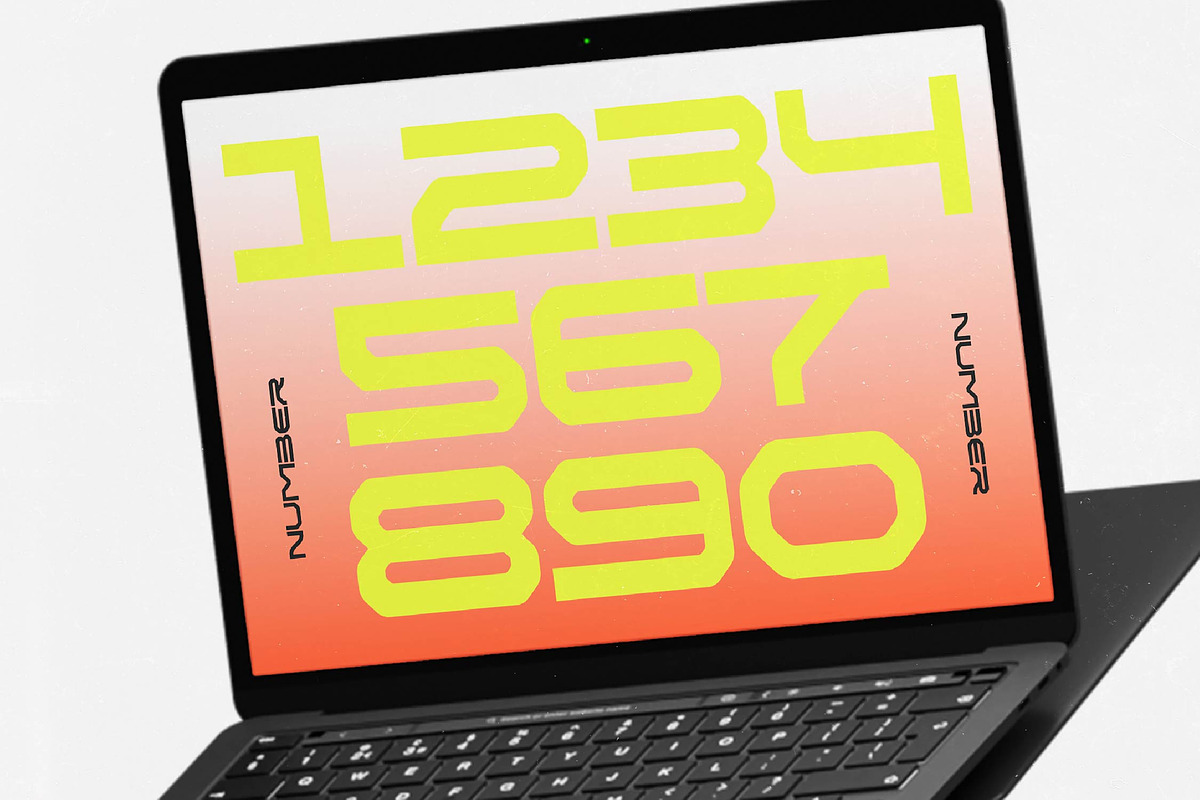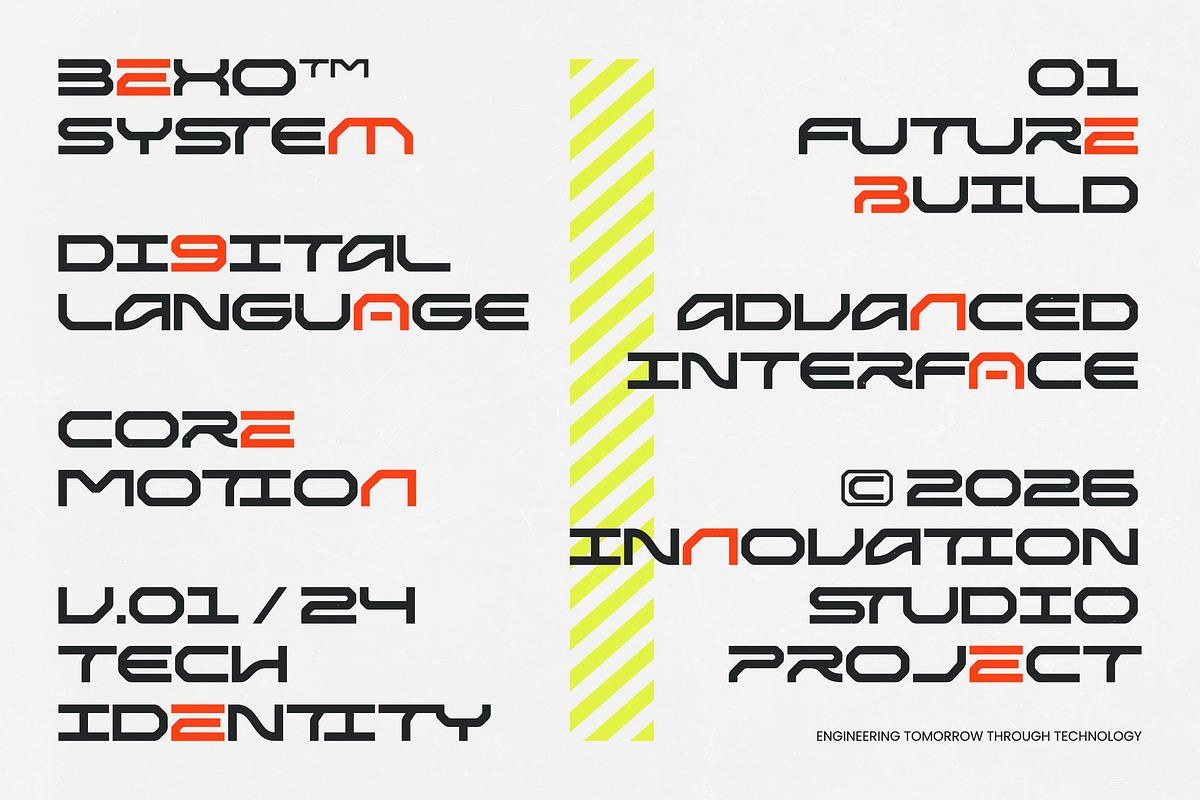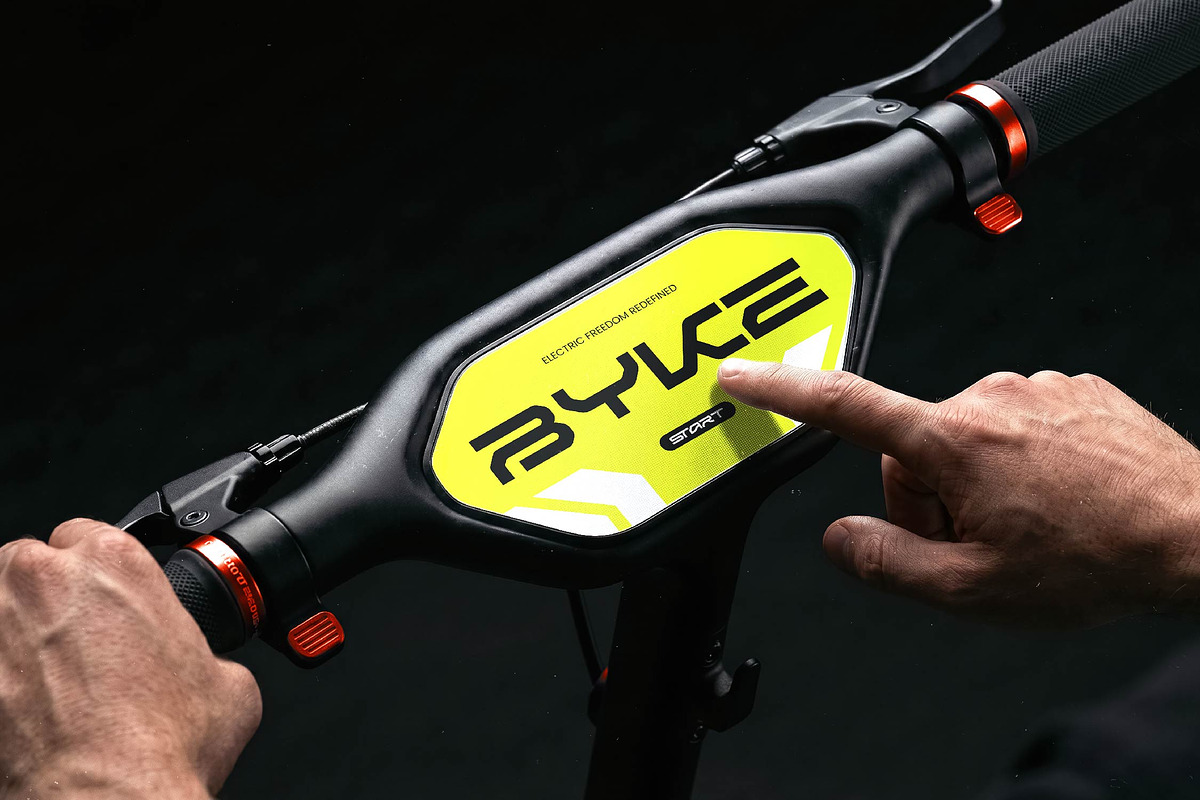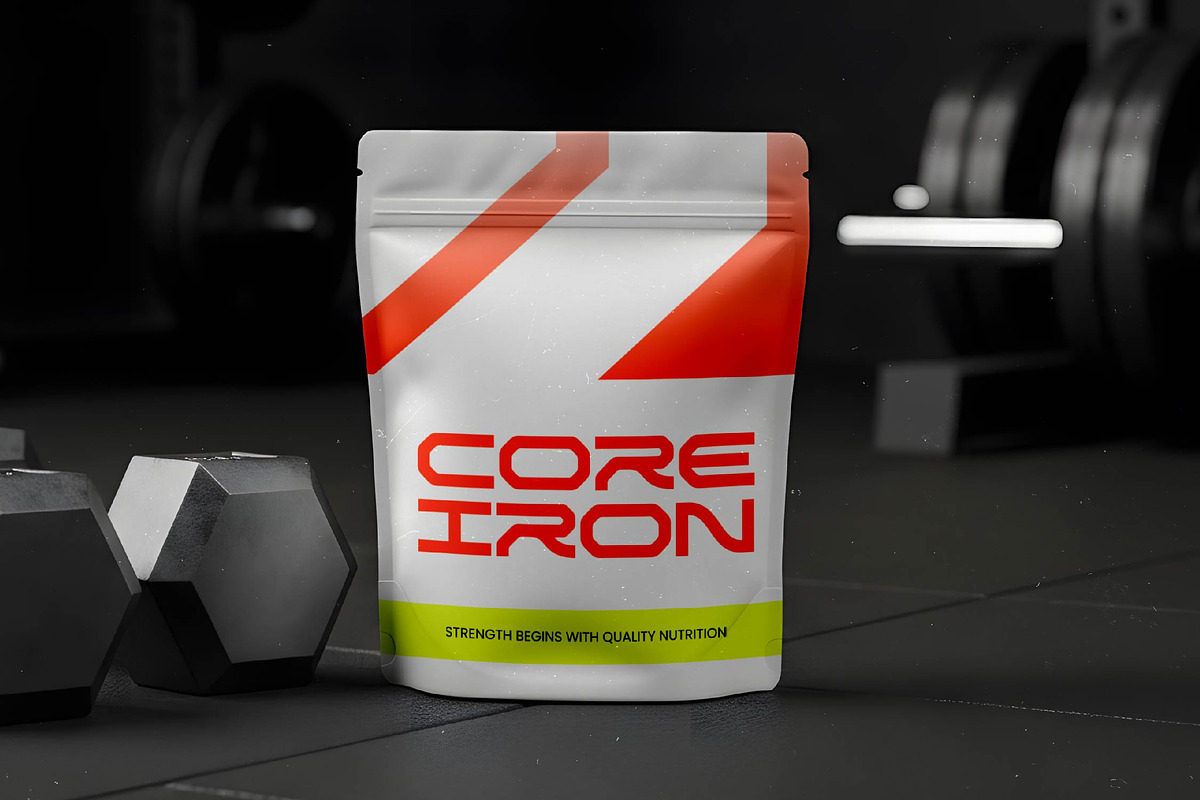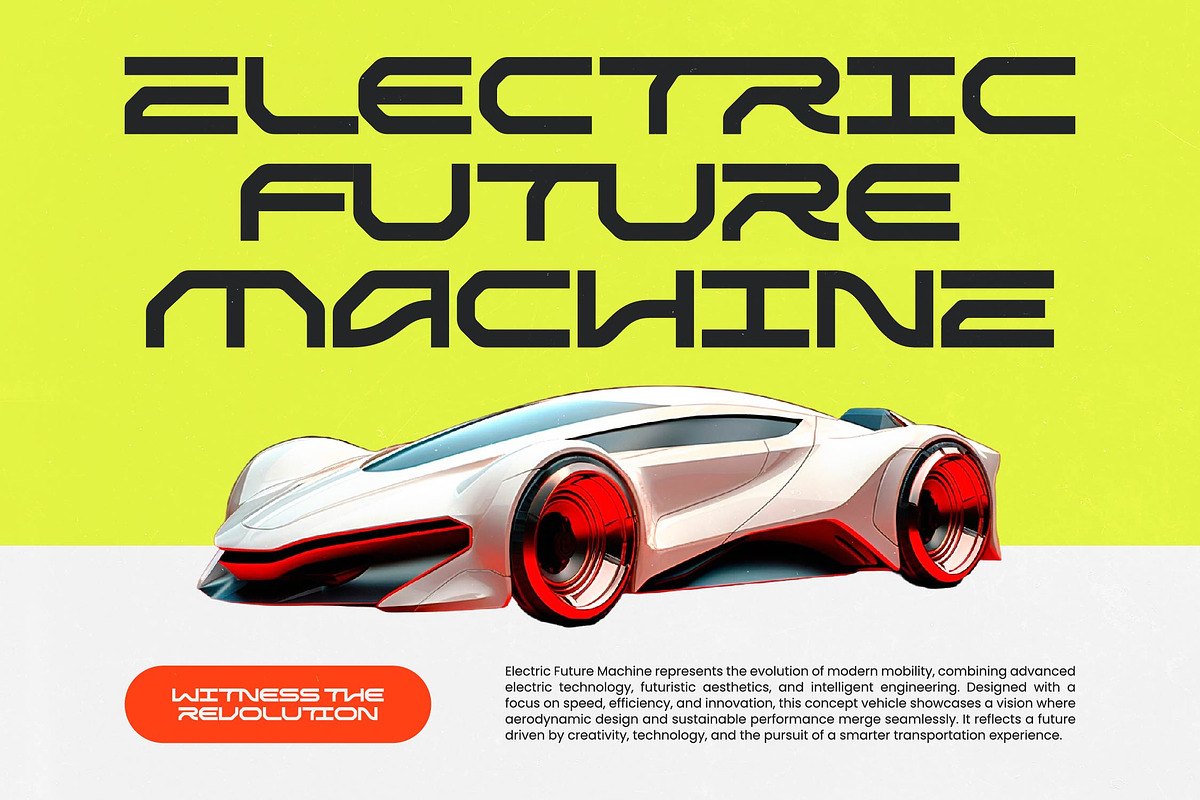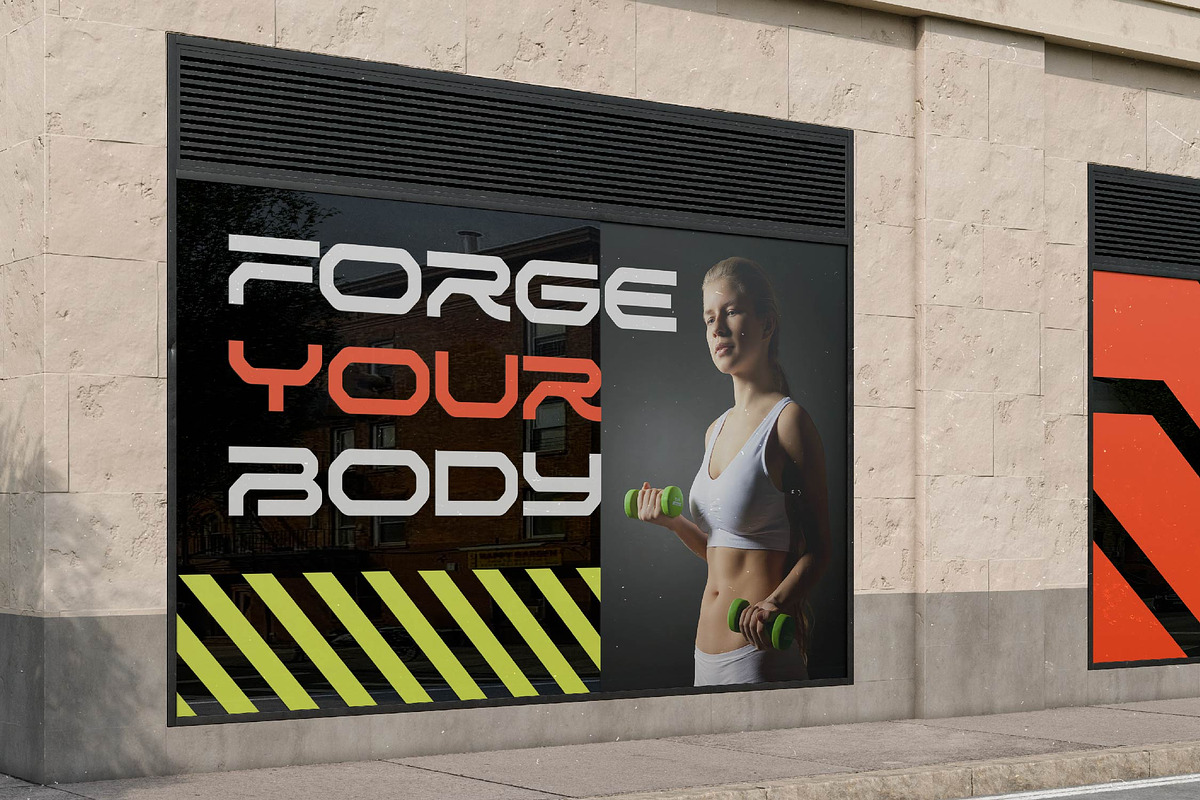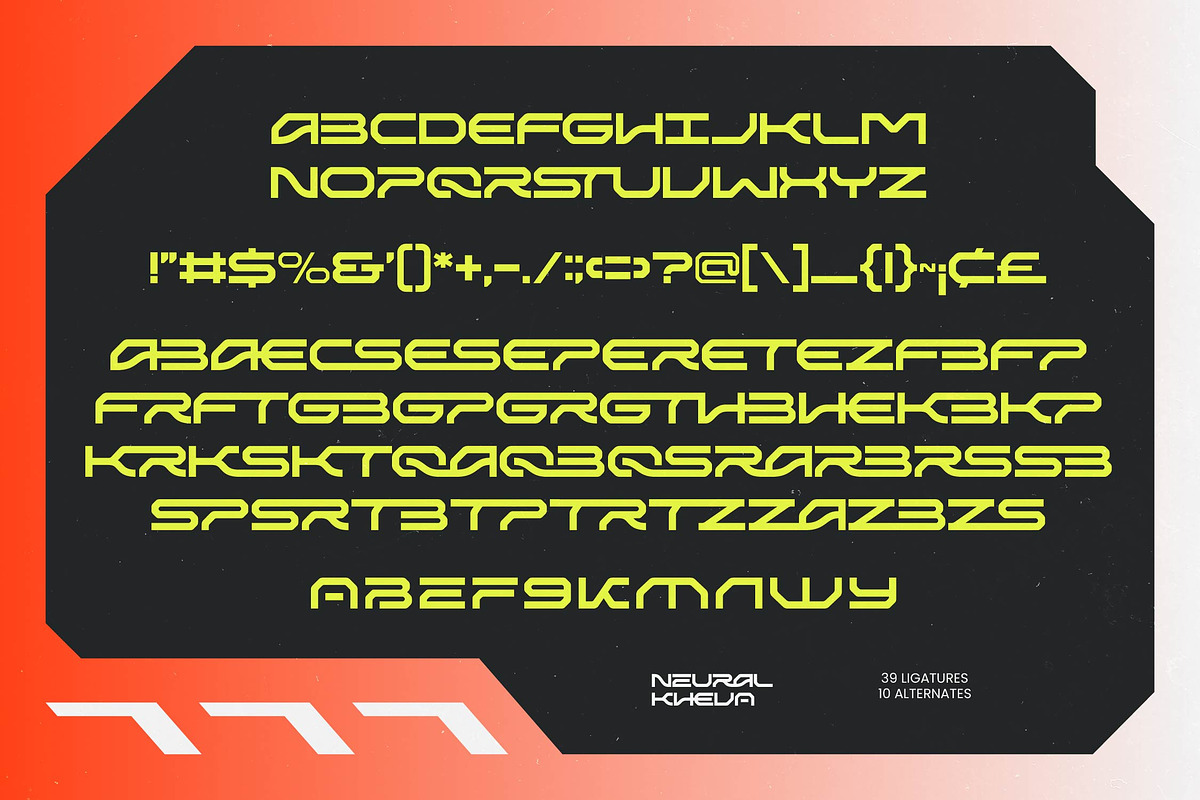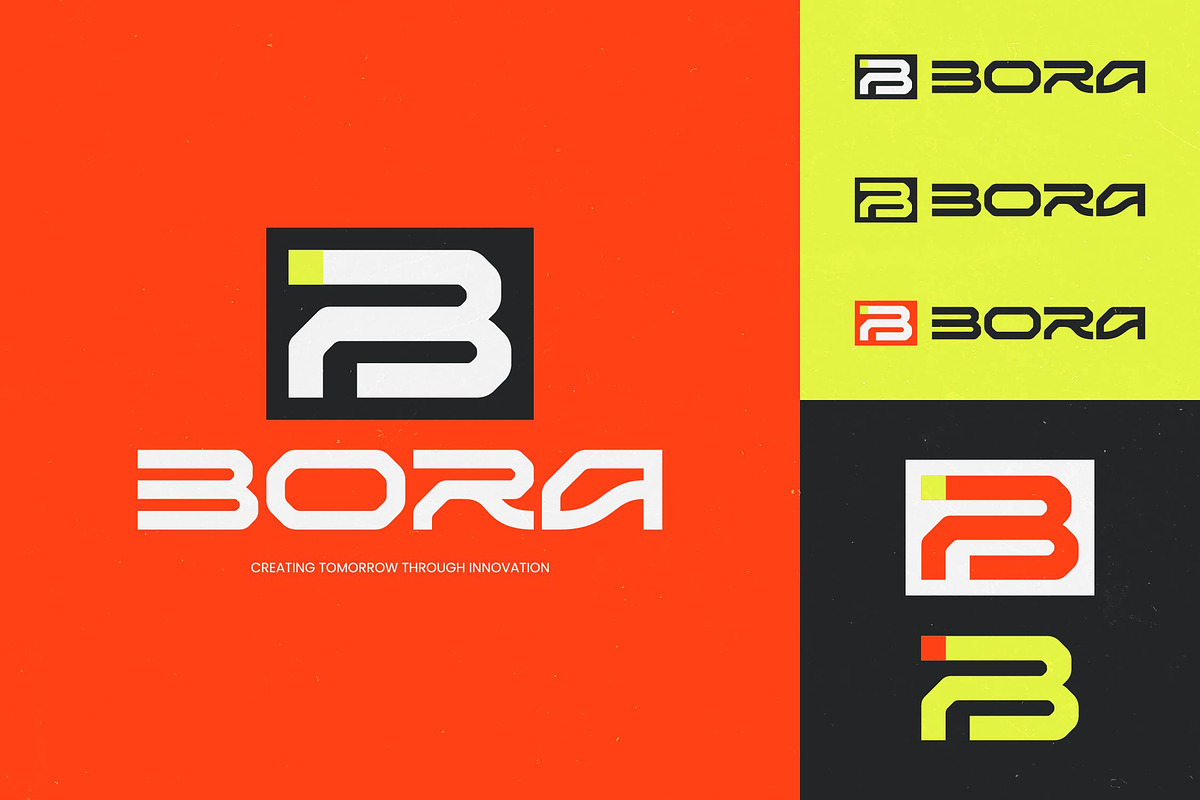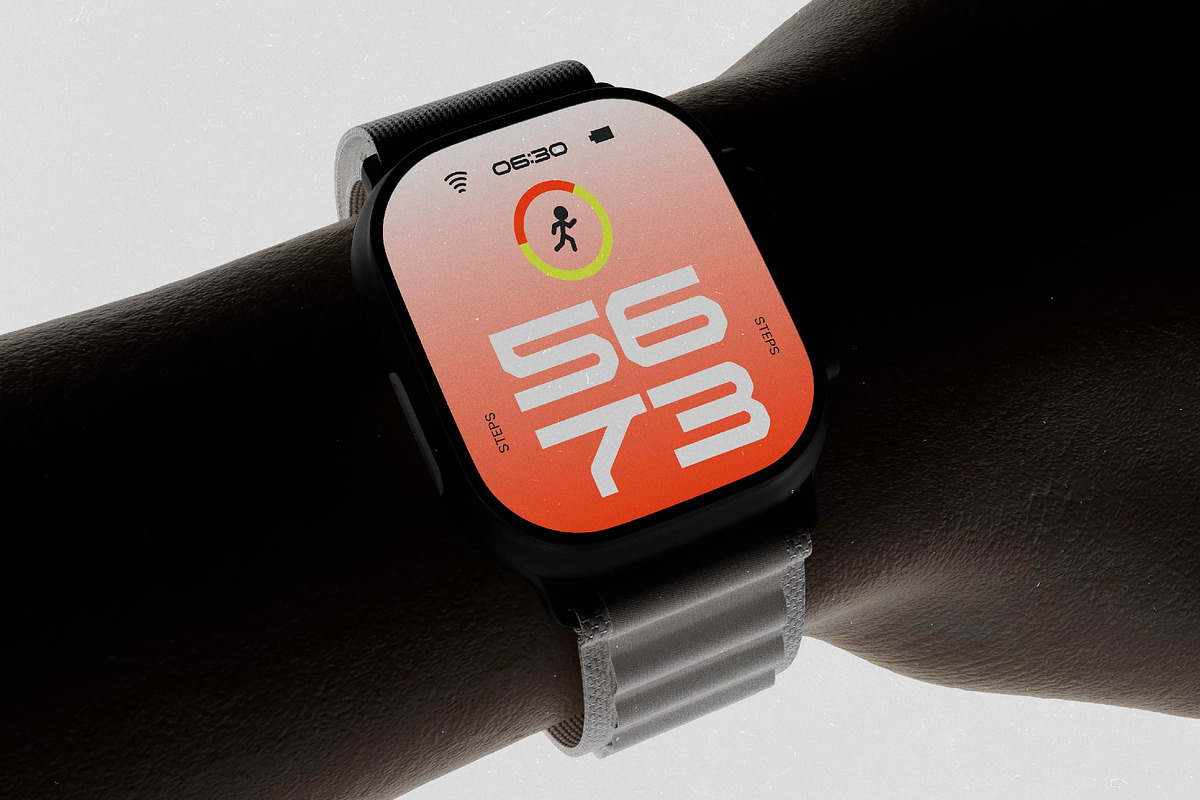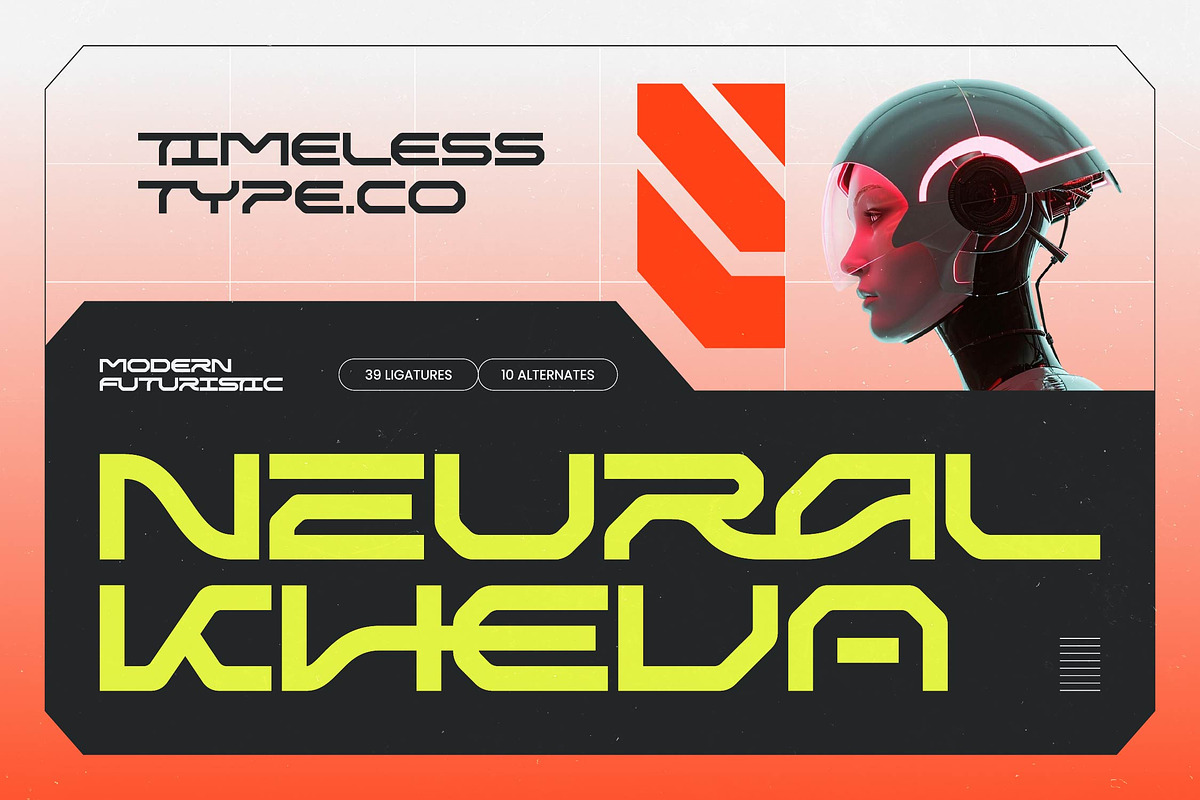
Neural Kheva Modern Futuristic
Neural Kheva - Modern Futuristic , Step into the future of digital expression with Neural Kheva, a font that redefines the boundaries of high-tech aesthetics and precision engineering. It is a masterpiece of forward-thinking design, crafted for creators who want to lead the next era of visual communication.
Inspired by the sleek curves of advanced robotics and the complex architecture of neural networks, this typeface captures the pulse of a cyberpunk landscape. It draws from the clinical beauty of science fiction interfaces and the rapid evolution of artificial intelligence to create a visual language that feels both alien and sophisticated.
This typeface commands attention with its distinct personality, offering a powerful modern serif display alternative in the world of high-concept design. While it leans into the digital realm, it maintains a luxury typography feel that ensures every word carries an editorial font quality and significant branding impact for modern creators.
Perfectly aligned with the modern serif trend of experimental shapes, this font rides the wave of editorial display fonts that prioritize unique identity. It stands at the forefront of character-driven typography, making it an essential tool for designers who need to break the mold of conventional, static typefaces.
Whether you are working on a high-end logo design or building a comprehensive branding system for a tech startup, this font excels in creating a cohesive visual identity. Its versatility makes it suitable for editorial layouts, futuristic packaging, or even avant-garde fashion campaigns that require a touch of the extraordinary.
Beyond its striking appearance, the font is packed with technical advantages including 39 unique ligatures and 10 stylistic alternates that allow for endless customization. It offers full support for international characters and is truly multilingual, ensuring your message resonates across global borders.